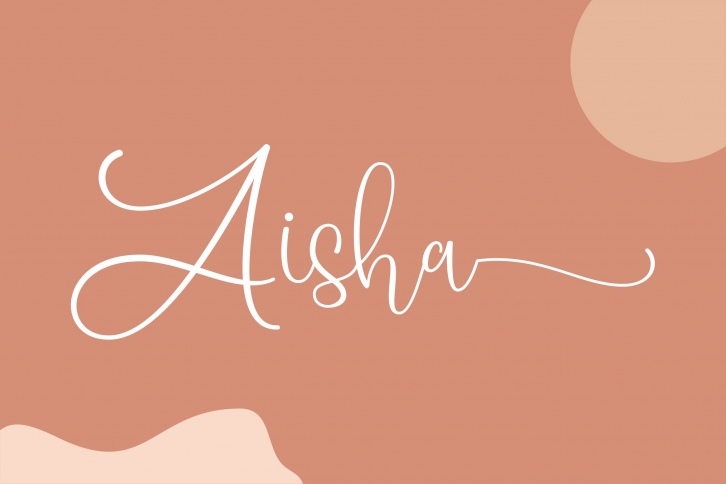
Aisha is a gorgeous font that was realeased on January 7, 2021. The font can be used in many style contexts and design environments. Perfect for invitations, magazines, websites, logos, and more! It was designed by Dicky Kribo and the file size is 5.32 MB. Thanks for checking out this font!